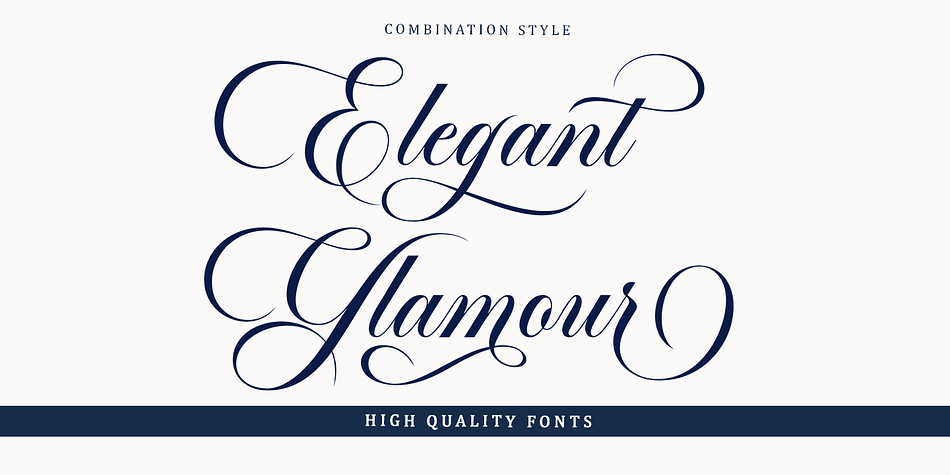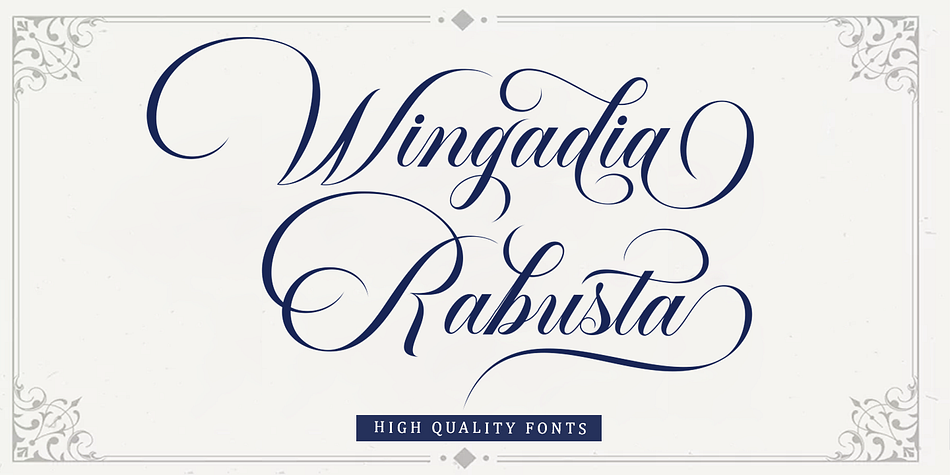
Chandia
Chandia is a modern calligraphy and script font family published by MasterType.
Chandia Elegant Script is one of the Elegant script fonts that comes with a very beautiful character change, a kind of classic copper decorative script with a modern touch, designed with high detail to present an elegant style.
Chandia Elegant Script is interesting because the typeface is pleasing to the eye, clean, feminine, sensual, glamorous, simple and very easy to read, because of the many luxurious letter connections. I also offer a number of decent stylistic alternatives for some of the letters. The classic style is very suitable to be applied in various formal forms such as invitations, labels, restaurant menus, logos, fashion, make up, stationery, novels, magazines, books, greeting / wedding cards, packaging, labels or all kinds of advertising purposes. . .
Chandia has alternate characters, including multiple language support. With OpenType features with alternative styles and elegant ligatures.